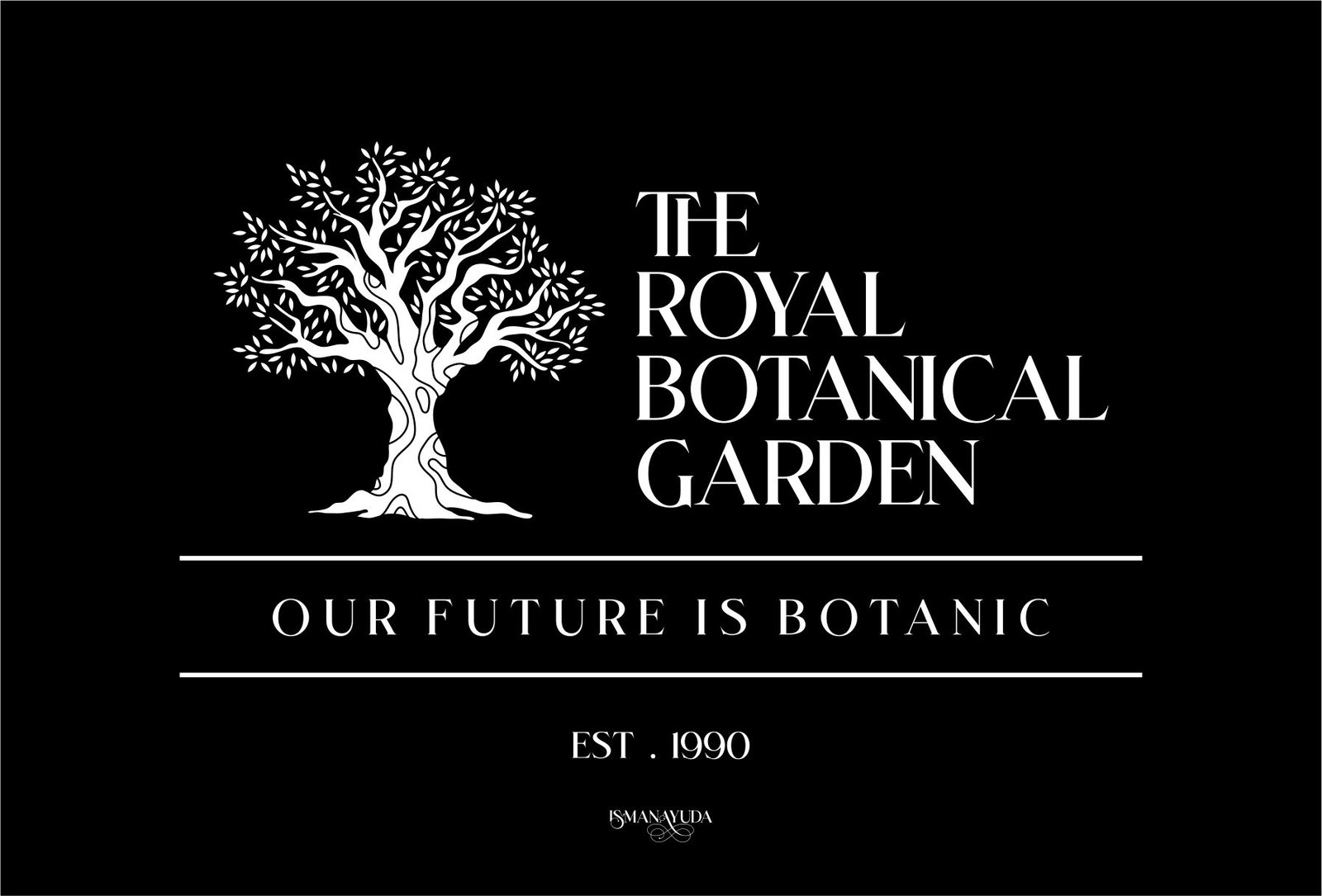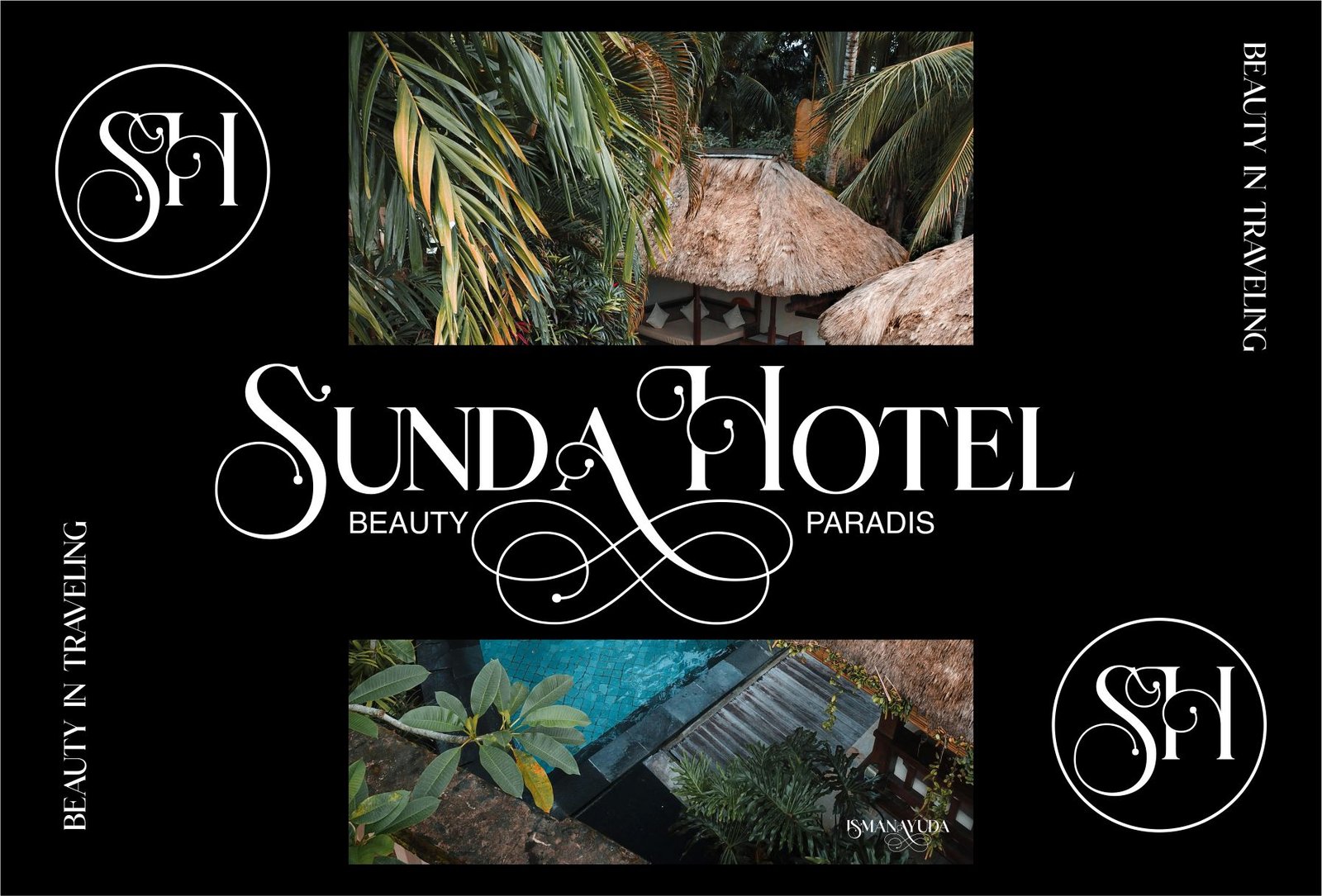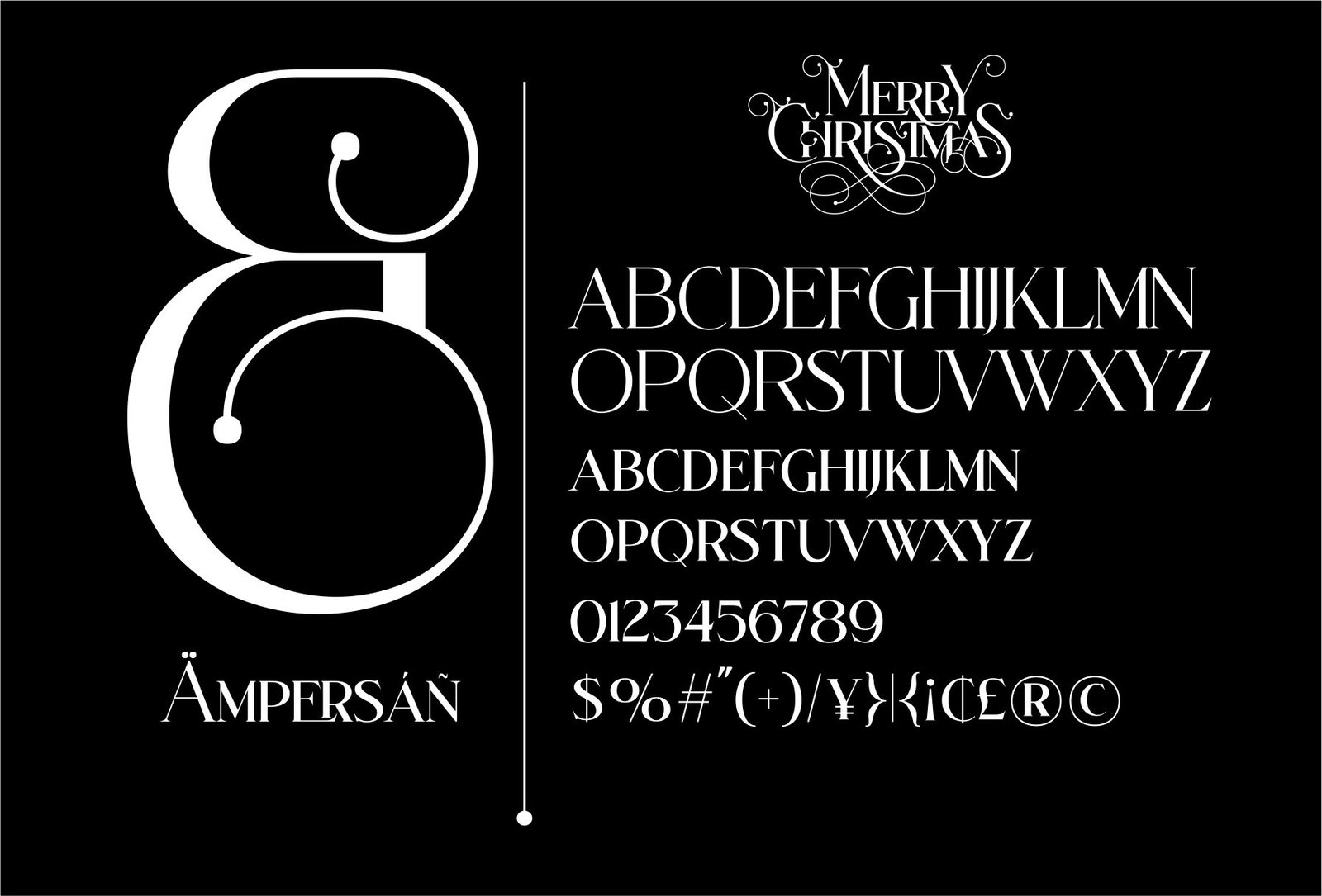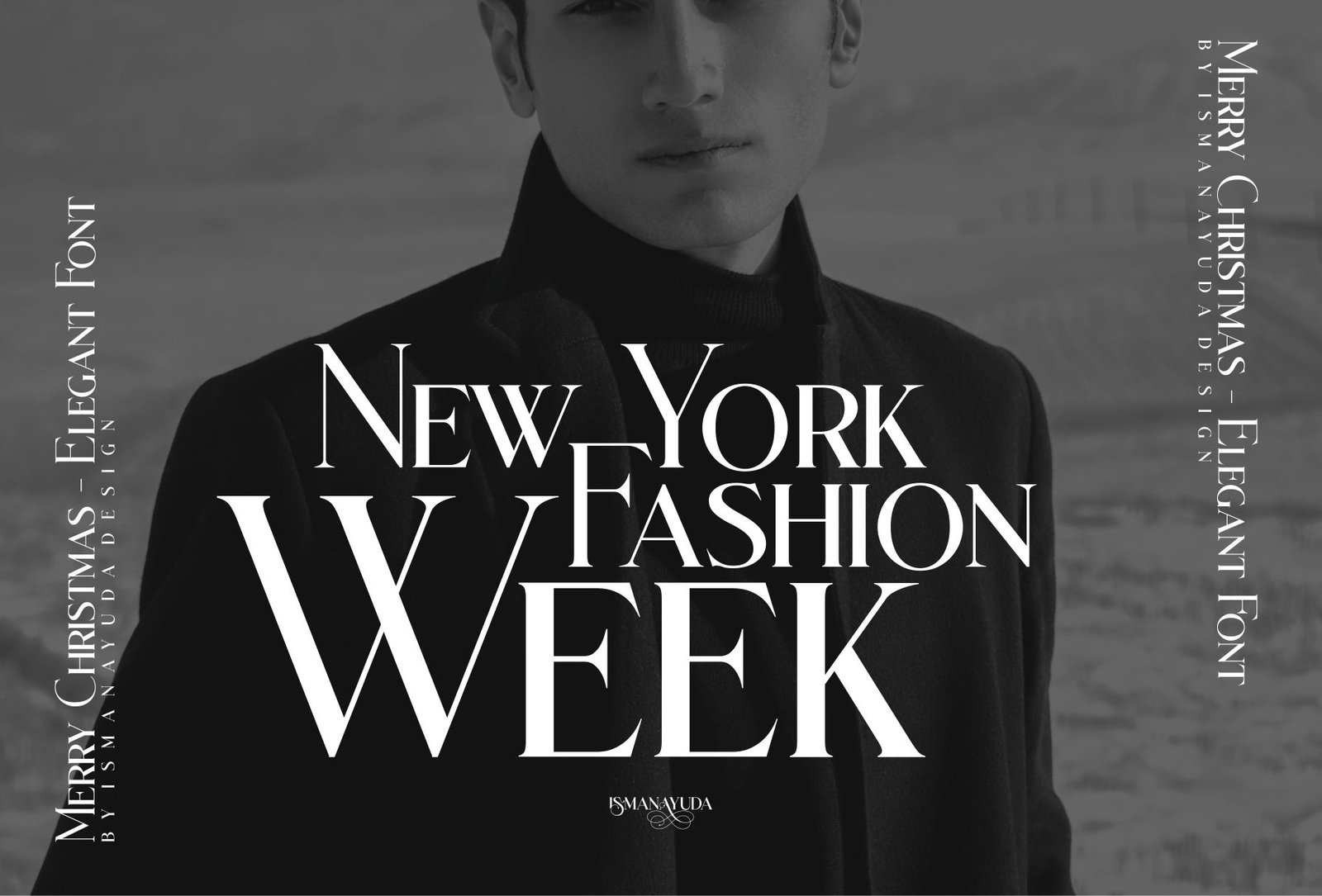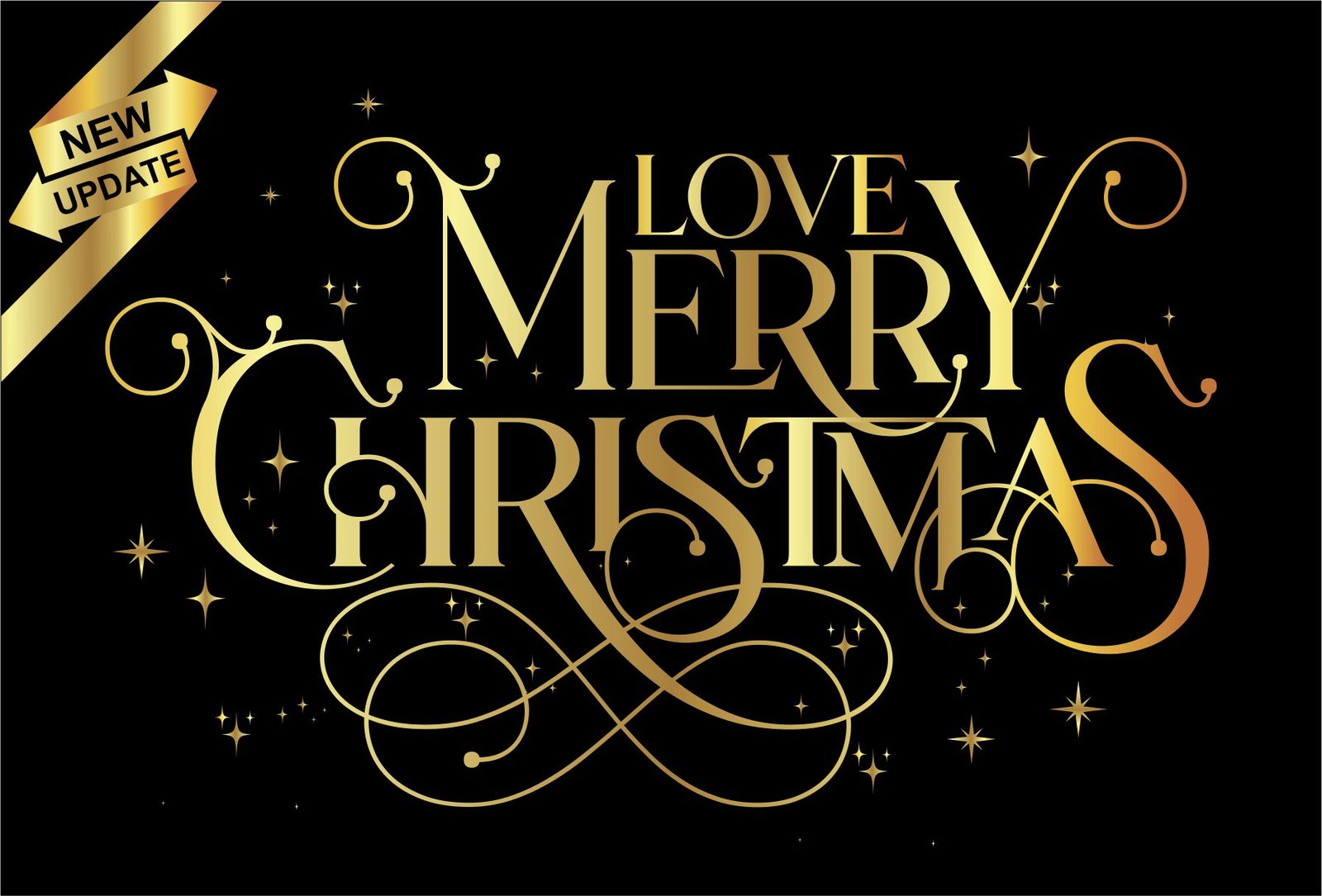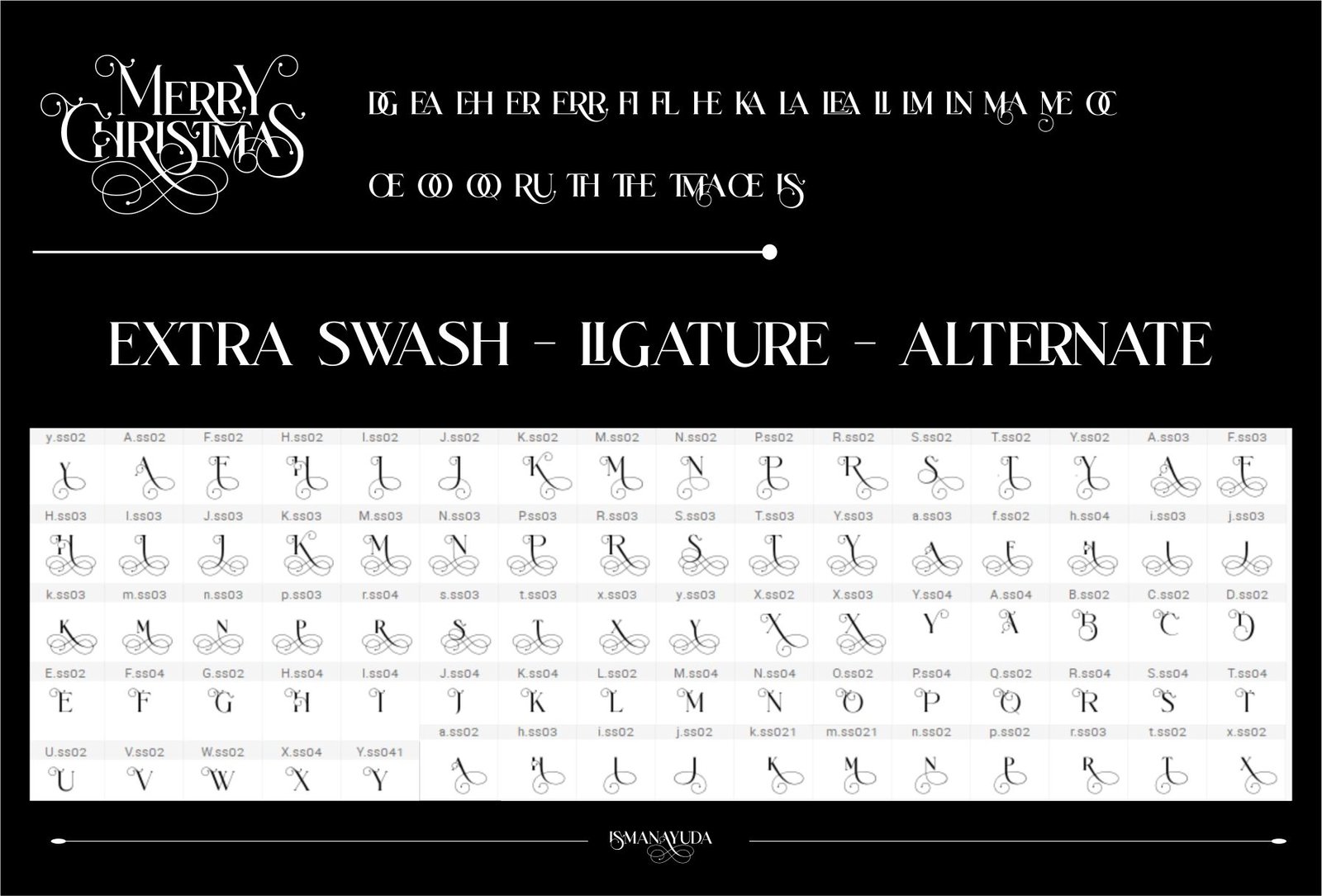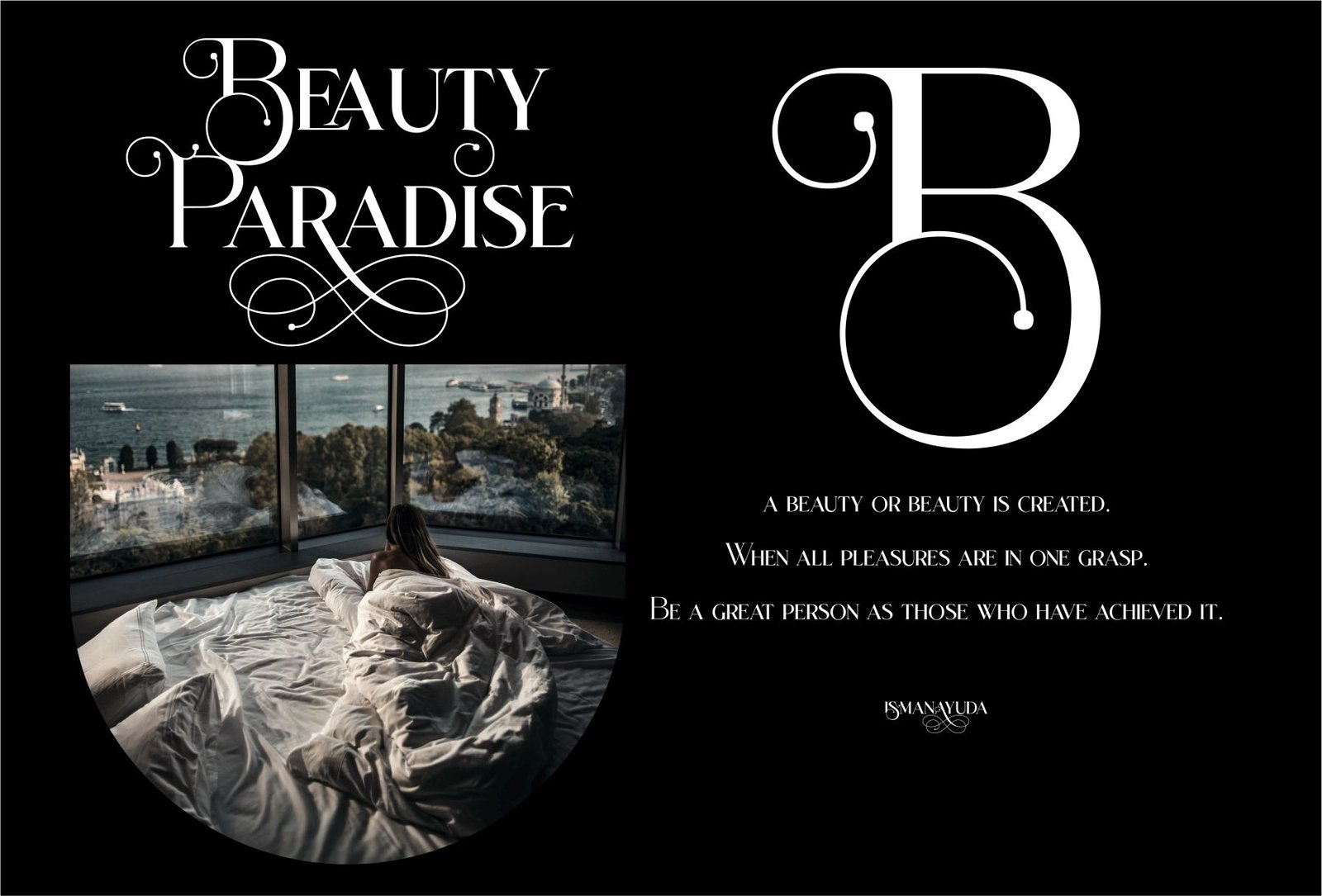
Marry Christmas Font
This time, Ismanayuda created a work of art with a serif font, with stylistics, ligatures, and also alternates.
There will be a lot that can be found in this font.
Merry Christmas is an elegant serif font with a contemporary feel and perfect shape, inspired by timeless classic calligraphy. Not too thin and not too thick, balanced and varied, this font is designed to enhance the beauty of your projects.
Uppercase
Lowecase
Ligature
Alternate
Swash